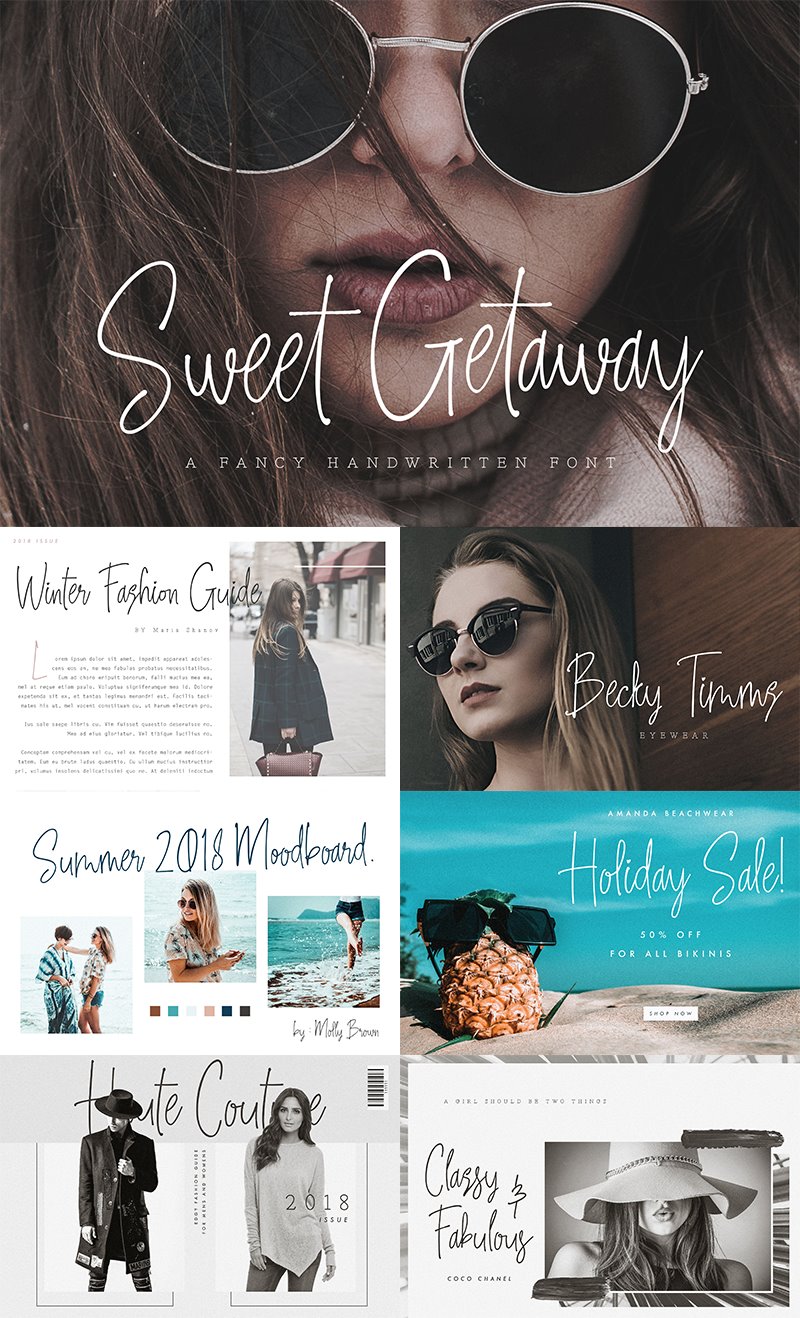
We are presenting best fonts for signs outdoor. These fonts are supposed to be used when designing outdoor signage.
It is said that outdoor signs are the calling cards for any business. This is what you say and approximate about your company. What signages are actually? Signage is the design using logo, mark and symbol to convey a message to some definite groups or people. This is specially being use for marketing purpose. It also means signs communally or being well-thought-out as a group.
Let me clear the view why outdoor signs are necessary. It is totally dissimilar from labeling which is supposed to carries information of an exact product or service. This is supposed to display for wayfinding information in places like inside and outside buildings and streets to give people mark. There is different form of signs based on place, location and intention. Billboards, murals, street signs, banners, lawn signs, street name signs, and sandwich board all kinds of signage.
Well, the main purpose of signs is to link, to carry information designed to assist the receiver. It is being doing with decision-making which is provided by the information provided or the one who want it.
On the other hand, advertising signage is also designed to convince receivers about the qualities of a specified product, brand or service.
Signs outdoors should as legible as possible. Best thing is selection of font that can fulfilment the requirement. So, this post contains best fonts for signs outdoor, so that you can pick font put accordingly.
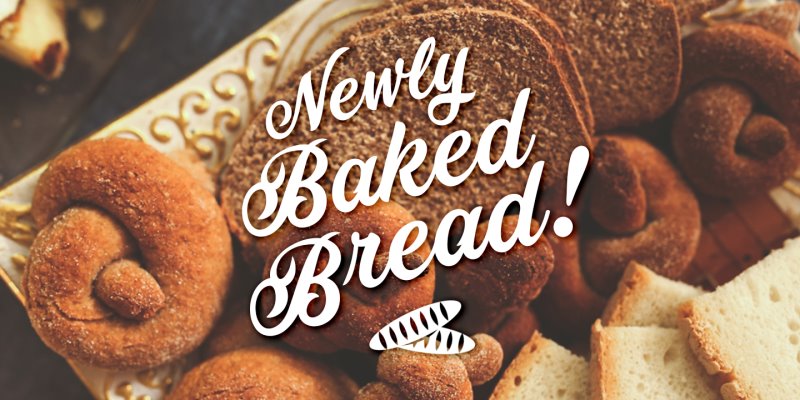
Sweet Getaway
Respective font
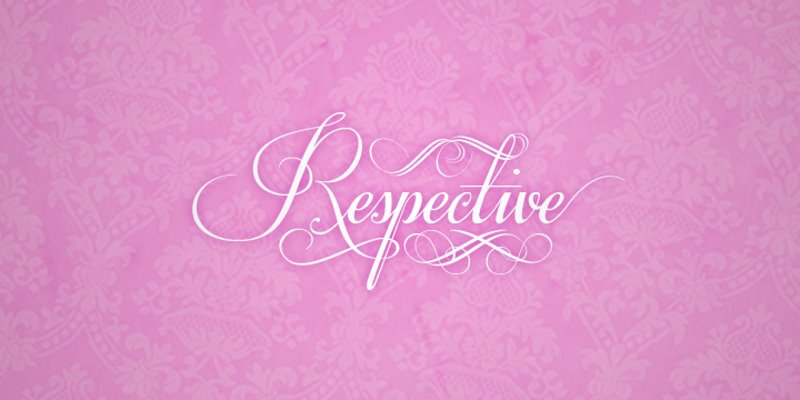
Airways font
Finition font
Ruffle Script font
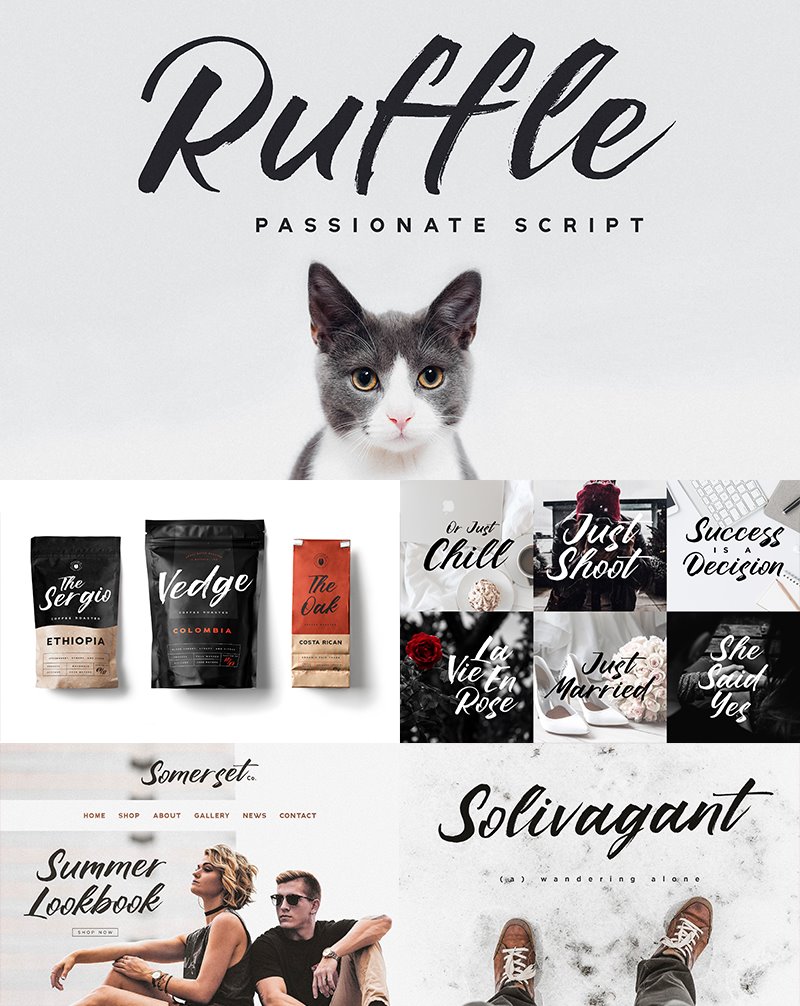
Dollyn Font